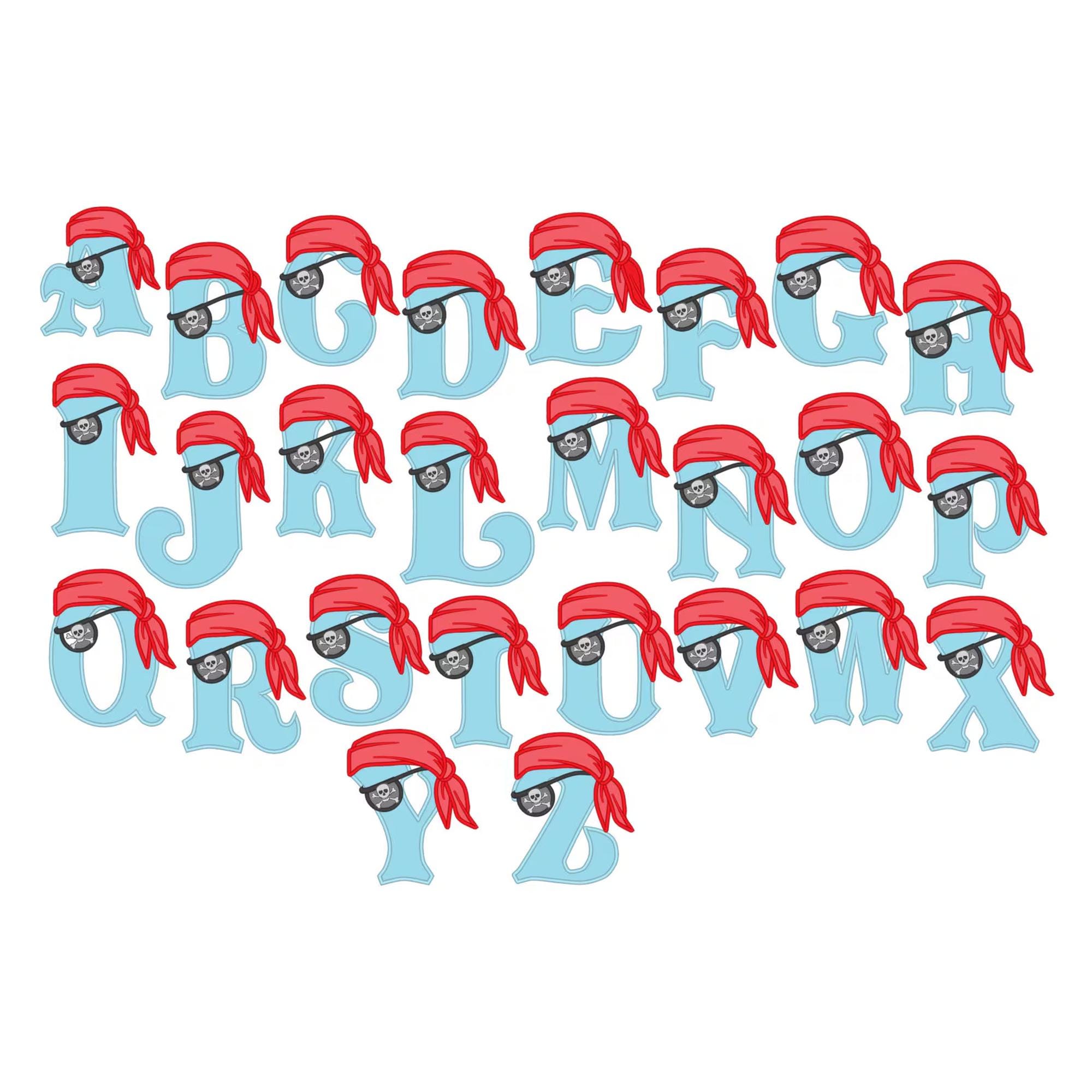
Pirate FONT Monogram letters SET Applique machine embroidery designs Pirate bandanna alphabet kids boys design sizes for hoop 5x7
All letters included from A to Z